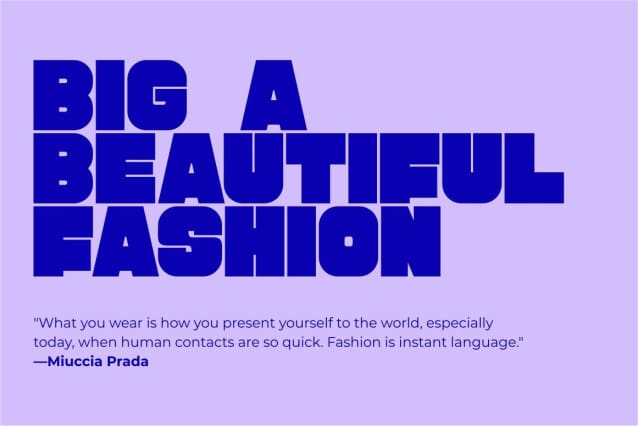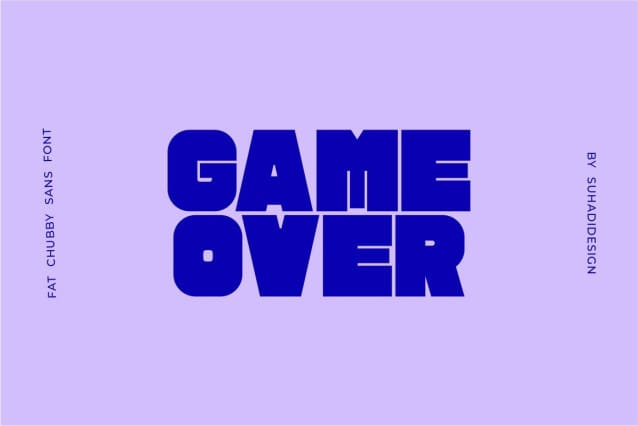
Fat Chubby Sans Font
Fat Chubby Sans font is a sans serif font presented in a modern style with the hope of becoming a popular font in the market. We keep this font elegant, classy, ​​modern, stylish, contemporary and easy to use. Fat ChubbySans font is a great choice for magazines, book covers, shopping bags, packaging, logos, labels, fashion, posters, banners, bags, branding, fashion, brand names, branding, quotes and other projects. Fat Chubby Sans font is here to take your design to the next level.